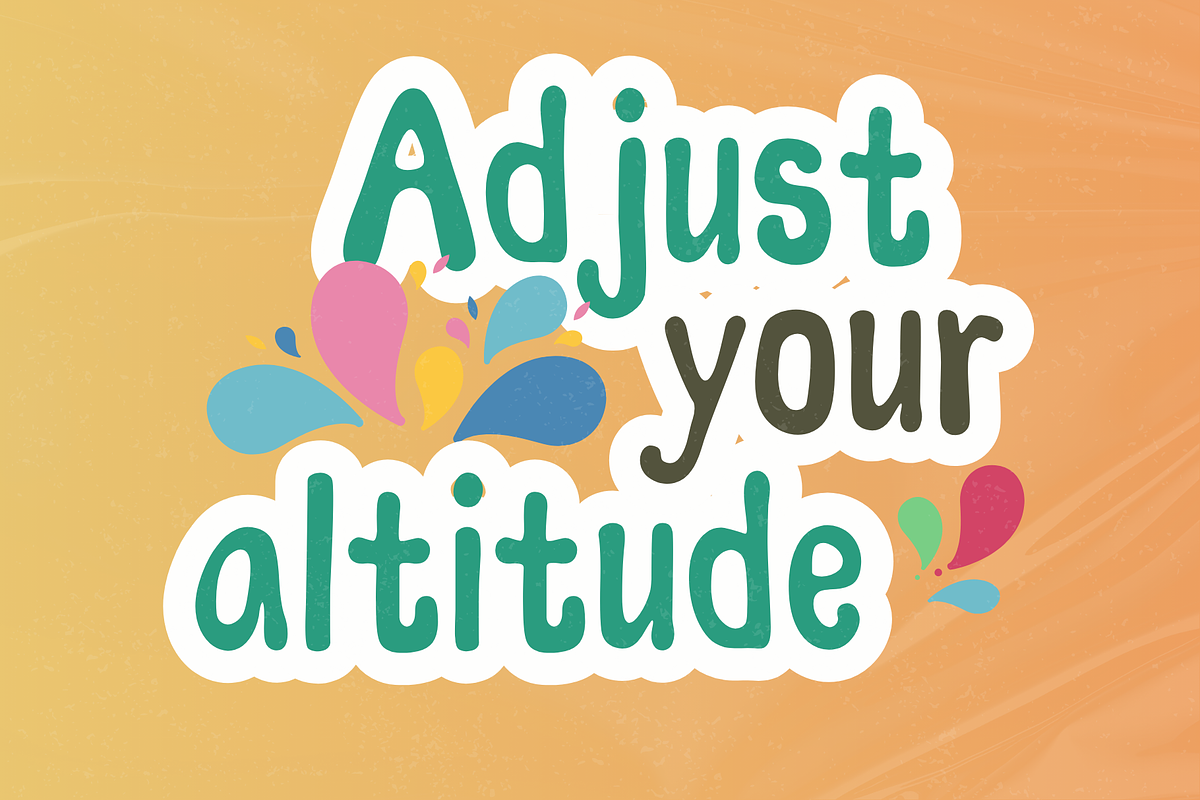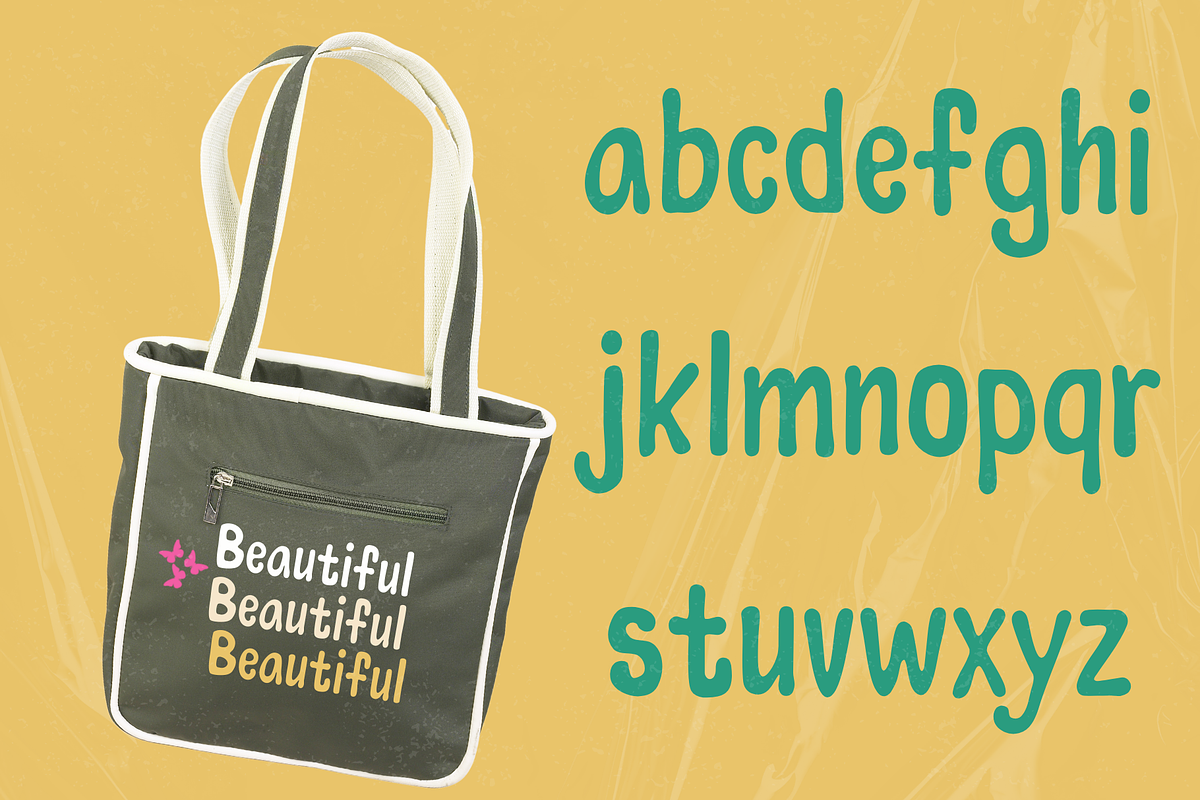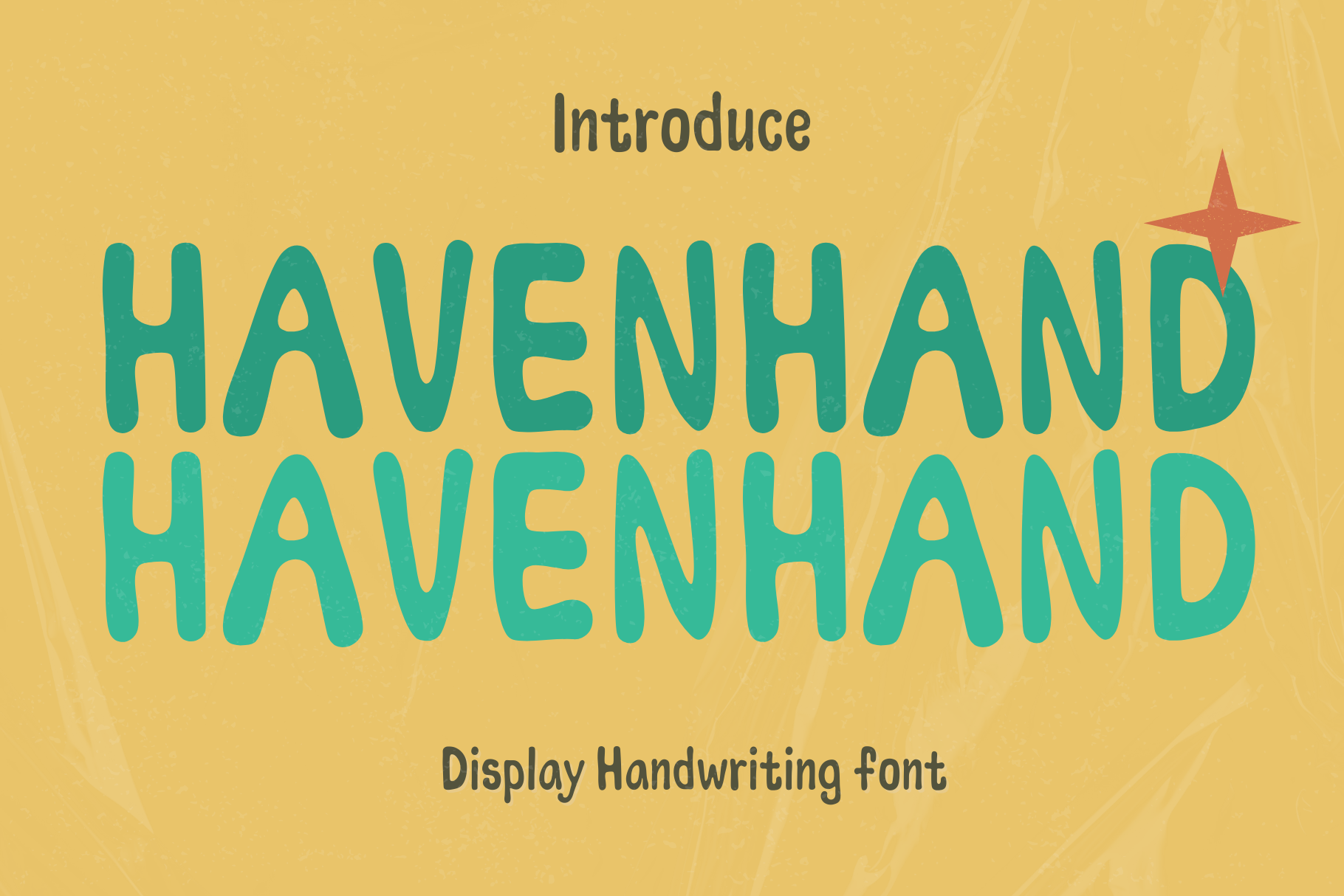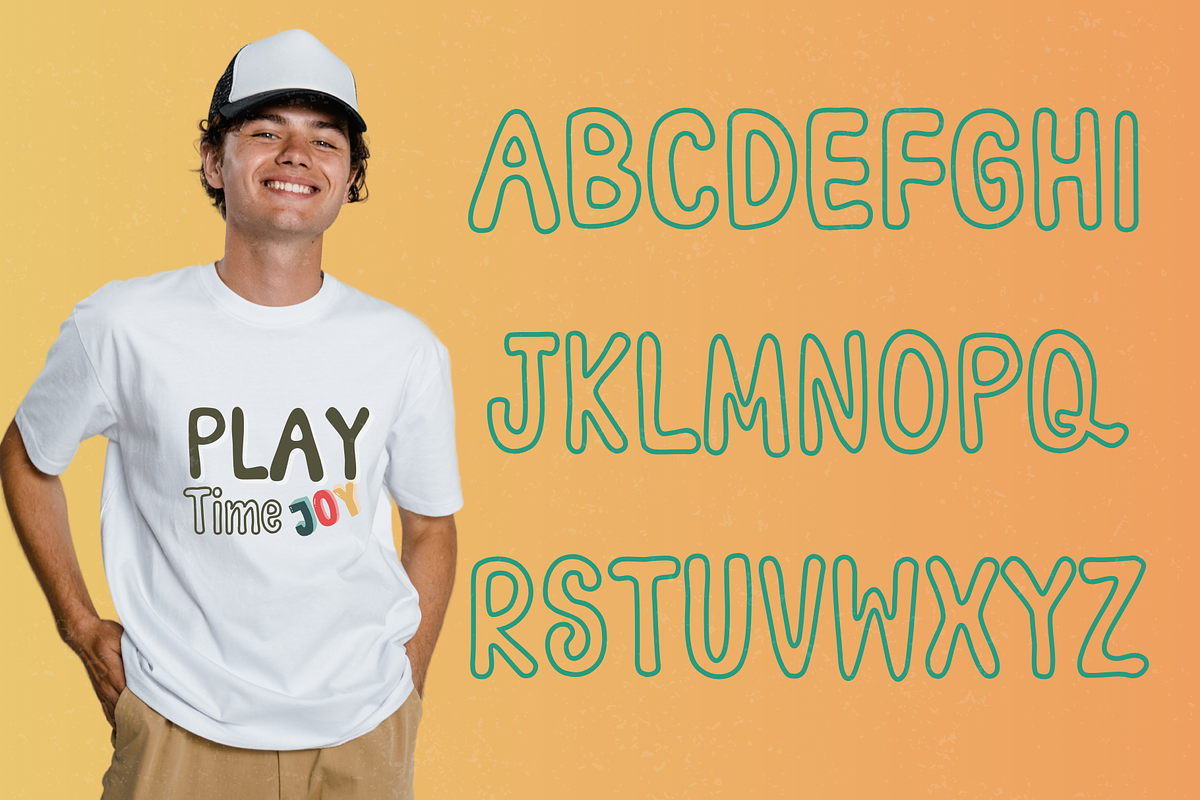
Havenhand handwriting font
"Havenhand handwriting font .It's a cute font designed to evoke a sense of adorableness with its round and bold letters. Perfect for various design projects, whether it's logos , stickers, t-shirt, Canva ,procreate , social it adds a special and charming touch to your designs."
”The decorative fonts are designed to be simple and versatile, suitable for various styles of work, making your designs stylish and easy to use.“